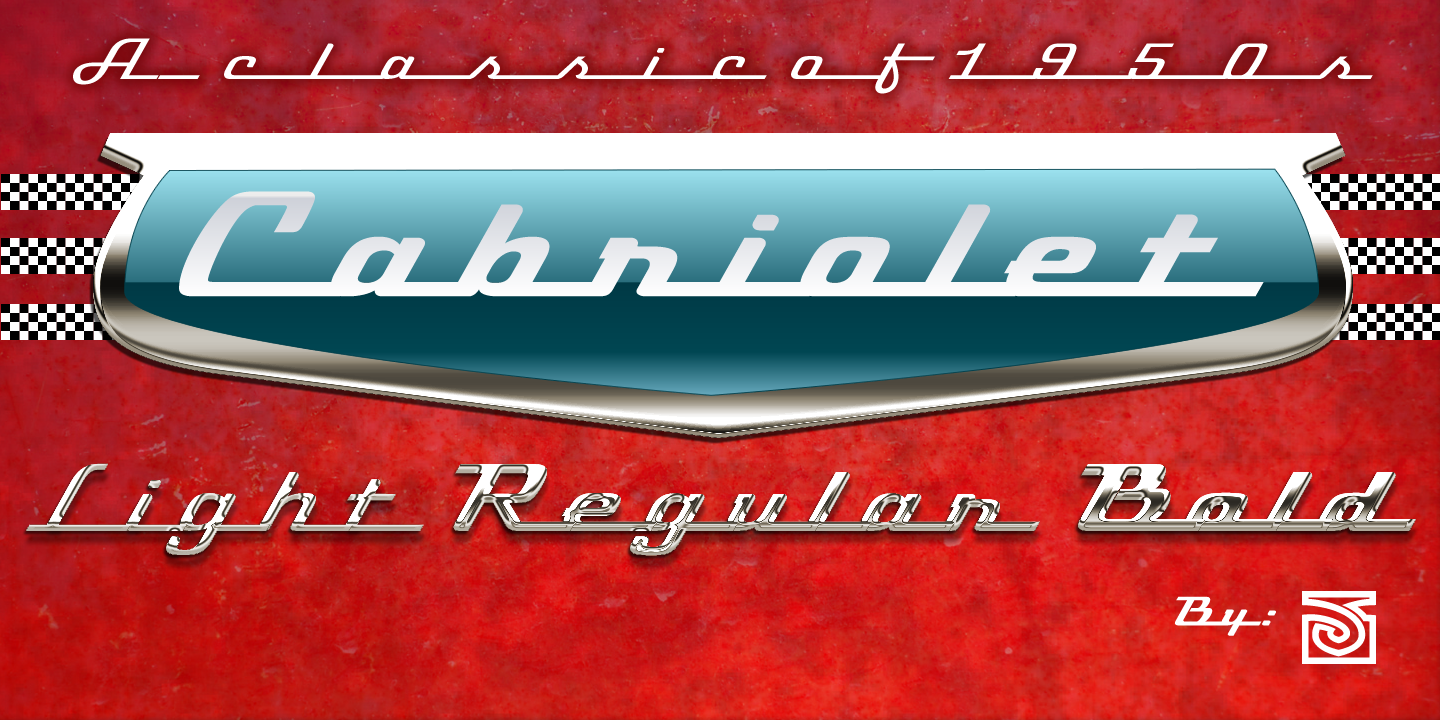
Cabriolet font family
Cabriolet is a connected geometric script re-interpretation inspired by old chromo emblems of Chevy truck Apache of 1960. With three weight variables, it can be used in logos, games and graphic related to cars, automotive, American, Detroit, Art Deco, 1940, 1950, 1960, vintage, retro, classic and old machines. Can be expandable using underscore for connect words or expanding between letters space.